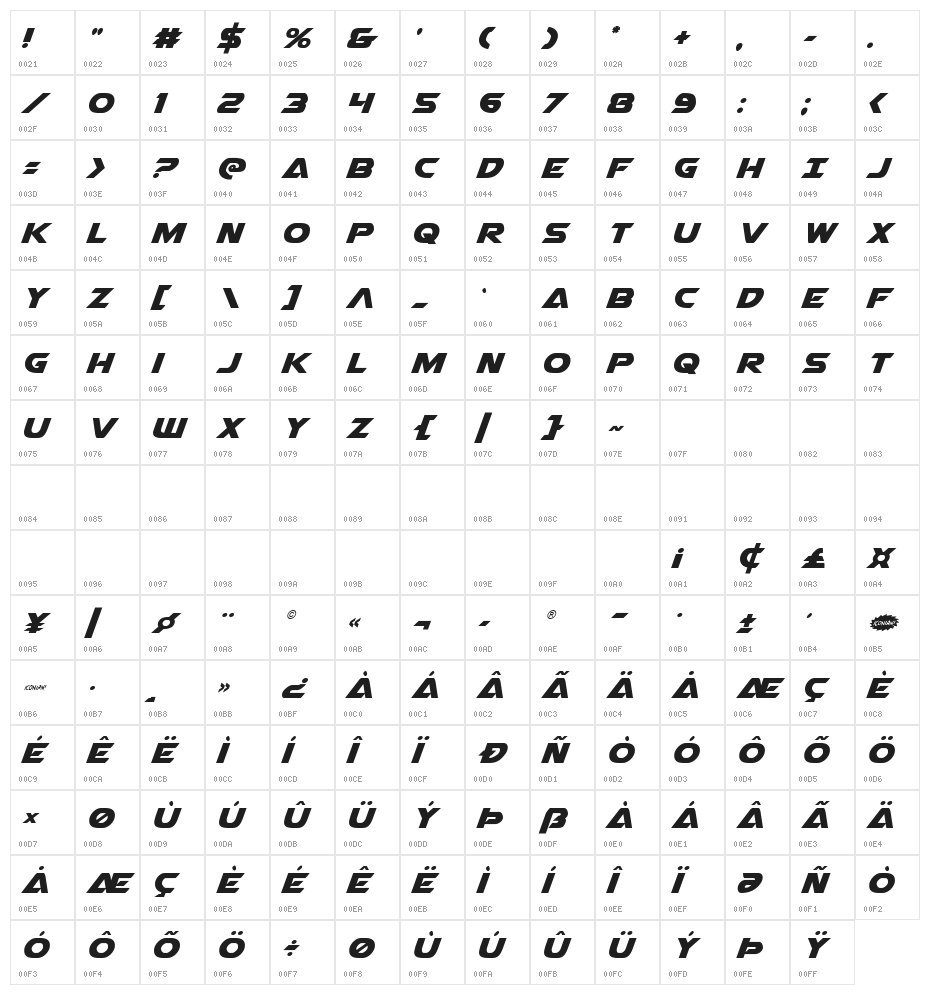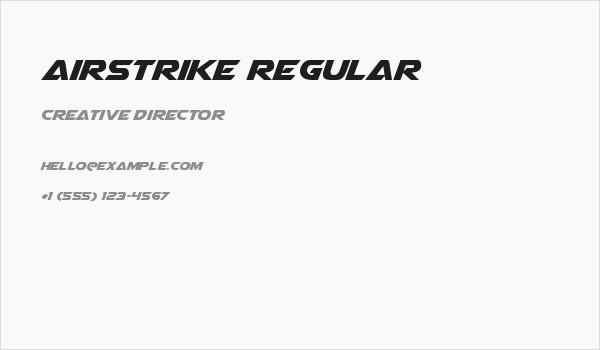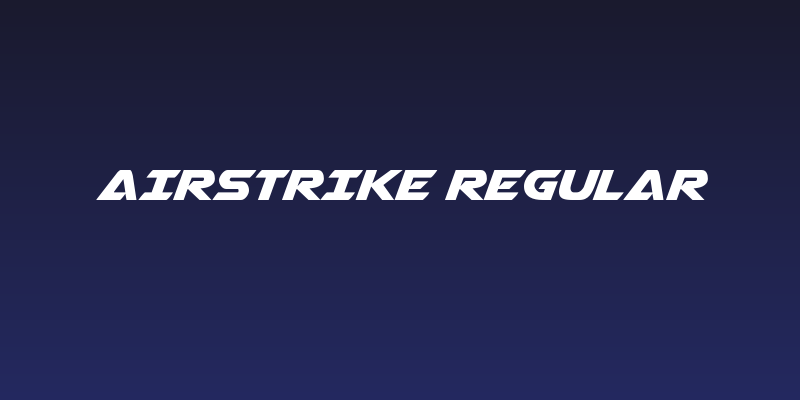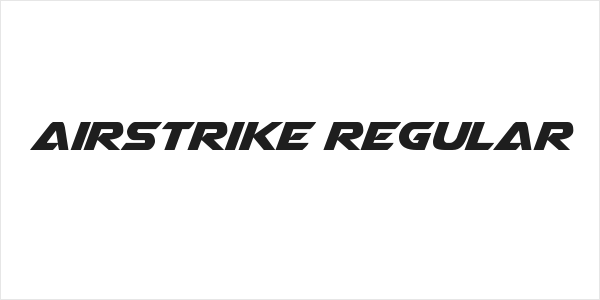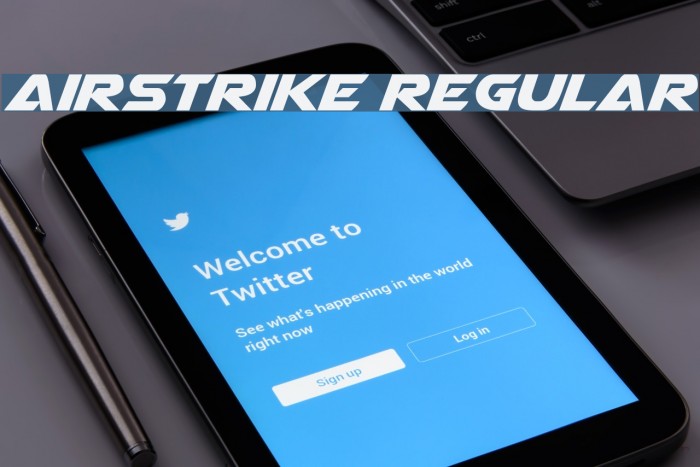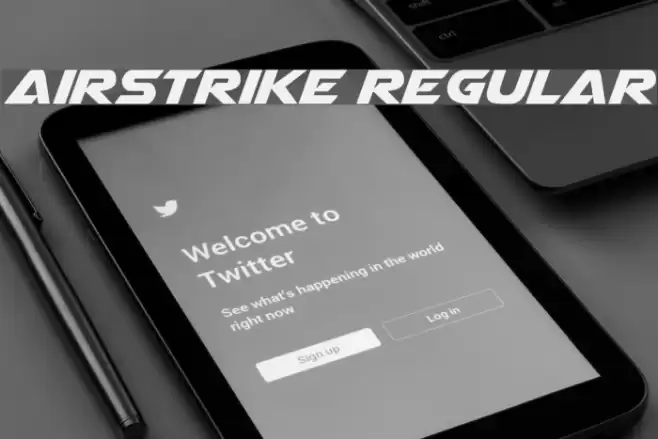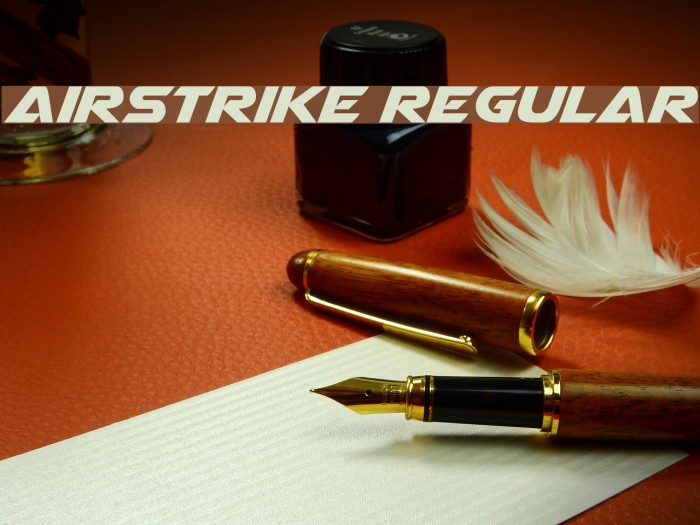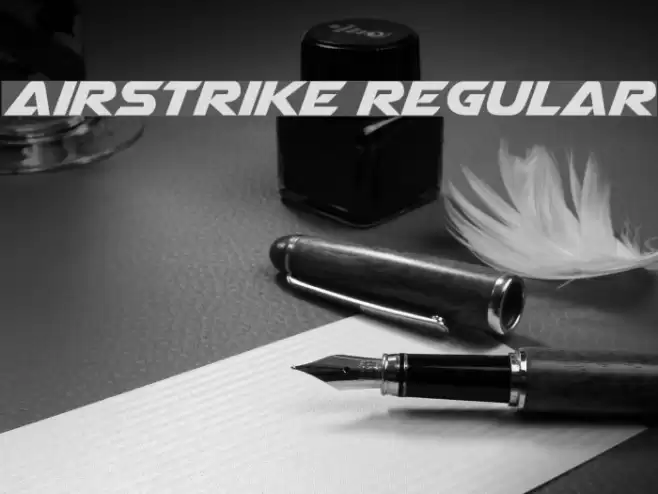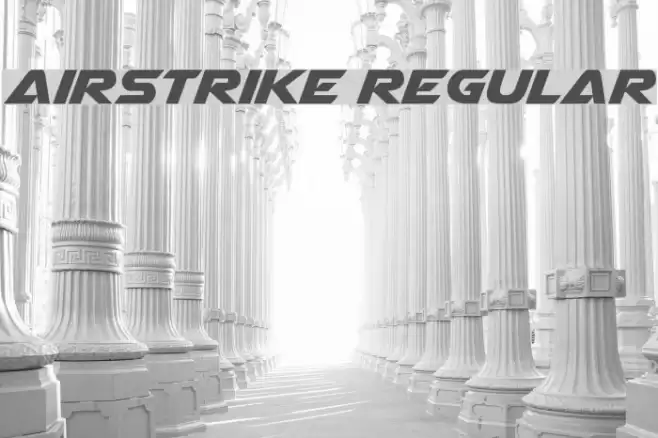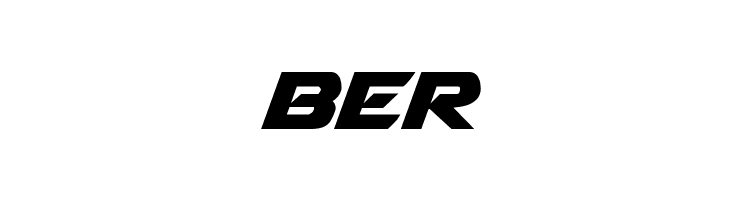
Airstrike Regular Font
✎ Futuristic
Airstrike Regular Description
This font features a bold and dynamic style with a strong emphasis on angular and geometric shapes. The characters are slightly italicized, giving a sense of motion and speed, which is further enhanced by the sharp edges and clean lines. The uppercase and lowercase letters maintain a consistent design, ensuring readability while adding a modern and futuristic touch. The numerals and special characters align seamlessly with the overall aesthetic, making it suitable for a variety of applications where a bold statement is needed.
| Proposed Projects | Ideal for sports branding, automotive advertisements, video game titles, and dynamic posters. |